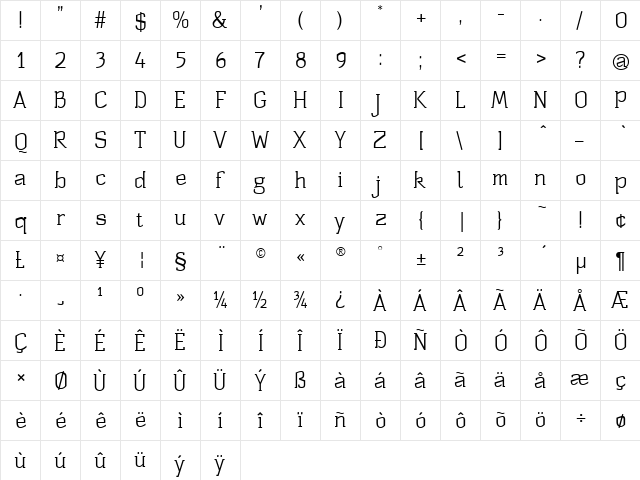
ST Substance Regular
| Foundry | Sascha Timplan /// Stereotypes.de |
| Designer | Sascha Timplan |
Design Context for ST Substance Typeface
ST Substance takes a measured approach to typography — its balanced proportions and neutral character make it a reliable workhorse for both digital and print work.